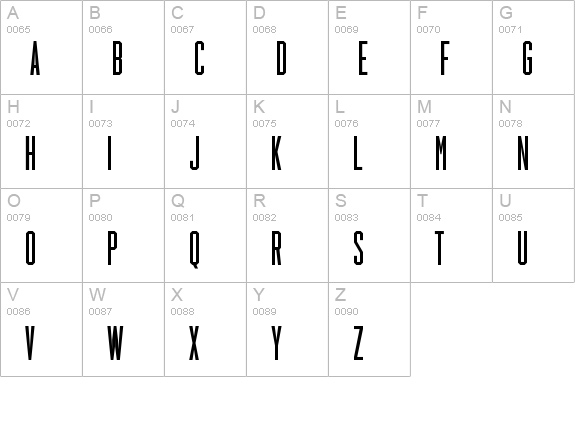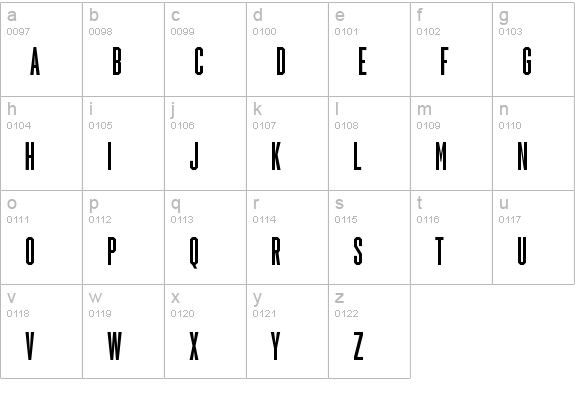
HeraldGothic-BoldSmallCaps Font Details
HeraldGothic-BoldSmallCaps font is a striking and powerful typeface that exudes elegance and sophistication. With its bold and sharp design, this font is perfect for creating eye-catching headlines and titles that demand attention. The small caps add a touch of refinement, making it suitable for a wide range of design projects. Best of all, HeraldGothic-BoldSmallCaps font is completely free to download at FontsMarket.com. Whether you're working on a branding project, editorial design, or any other creative endeavor, this font is sure to make a bold statement. Don't miss out on this fantastic opportunity to enhance your designs with the distinctive style of HeraldGothic-BoldSmallCaps font. Download it now and elevate your typography game!